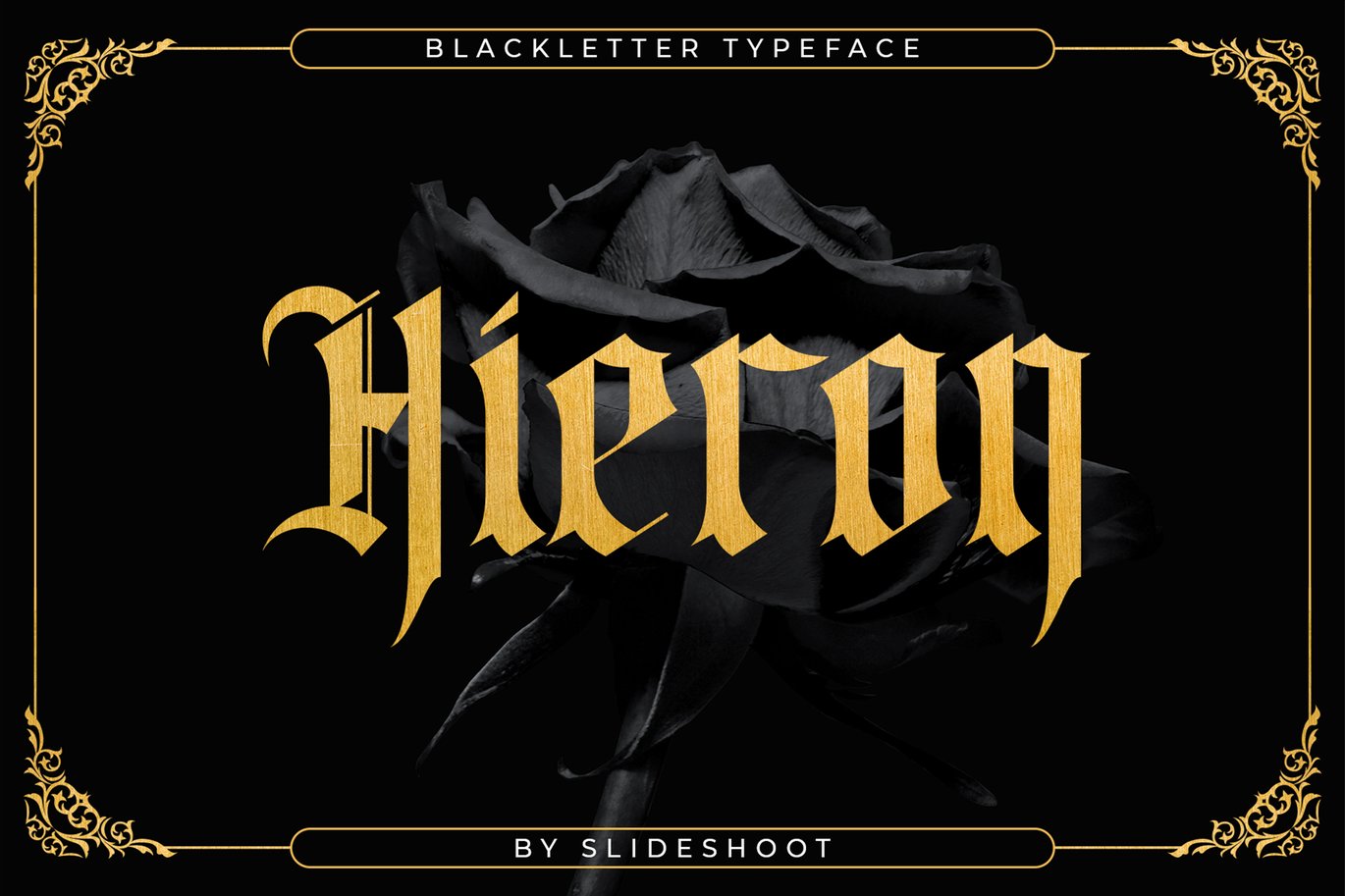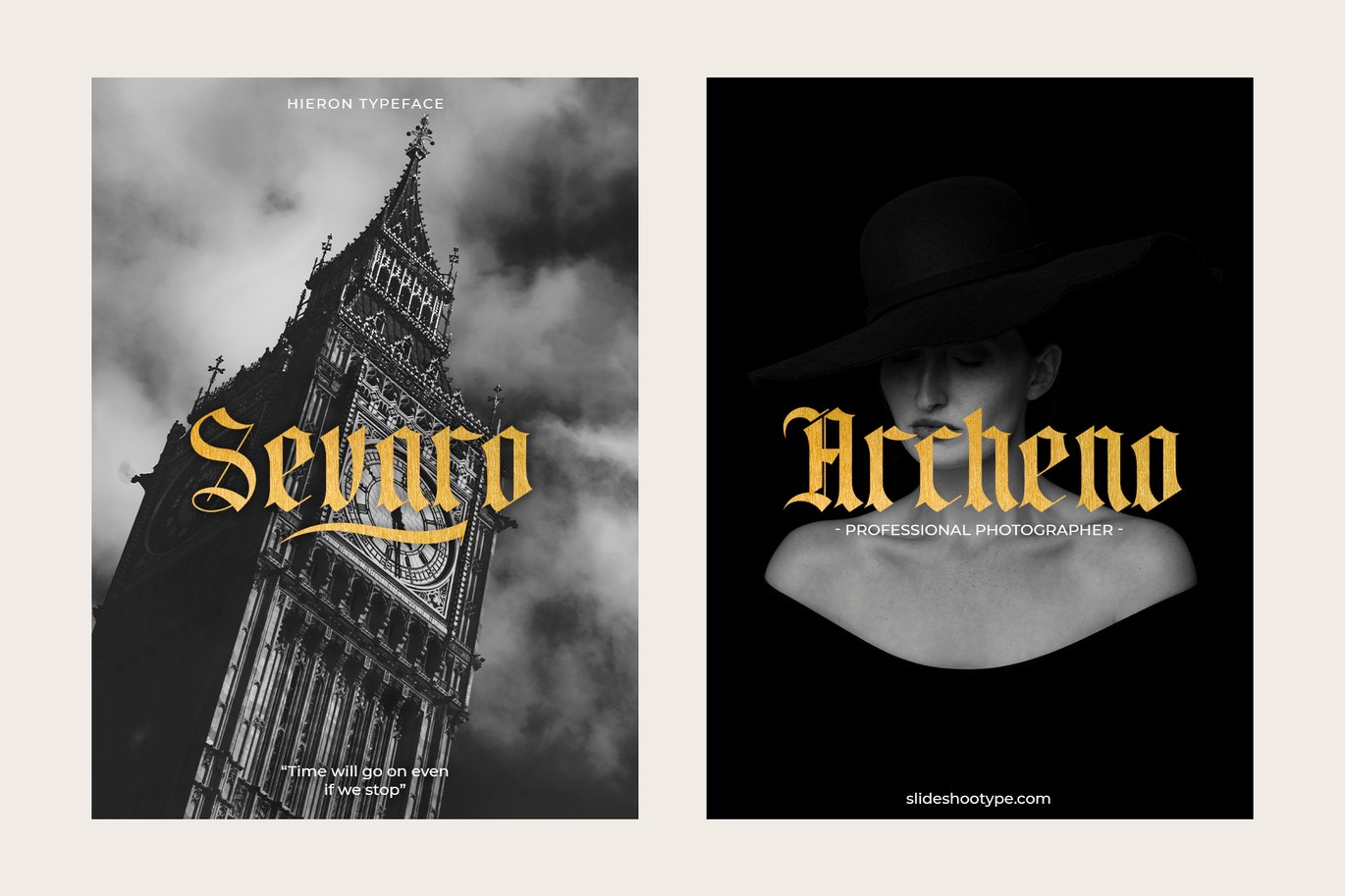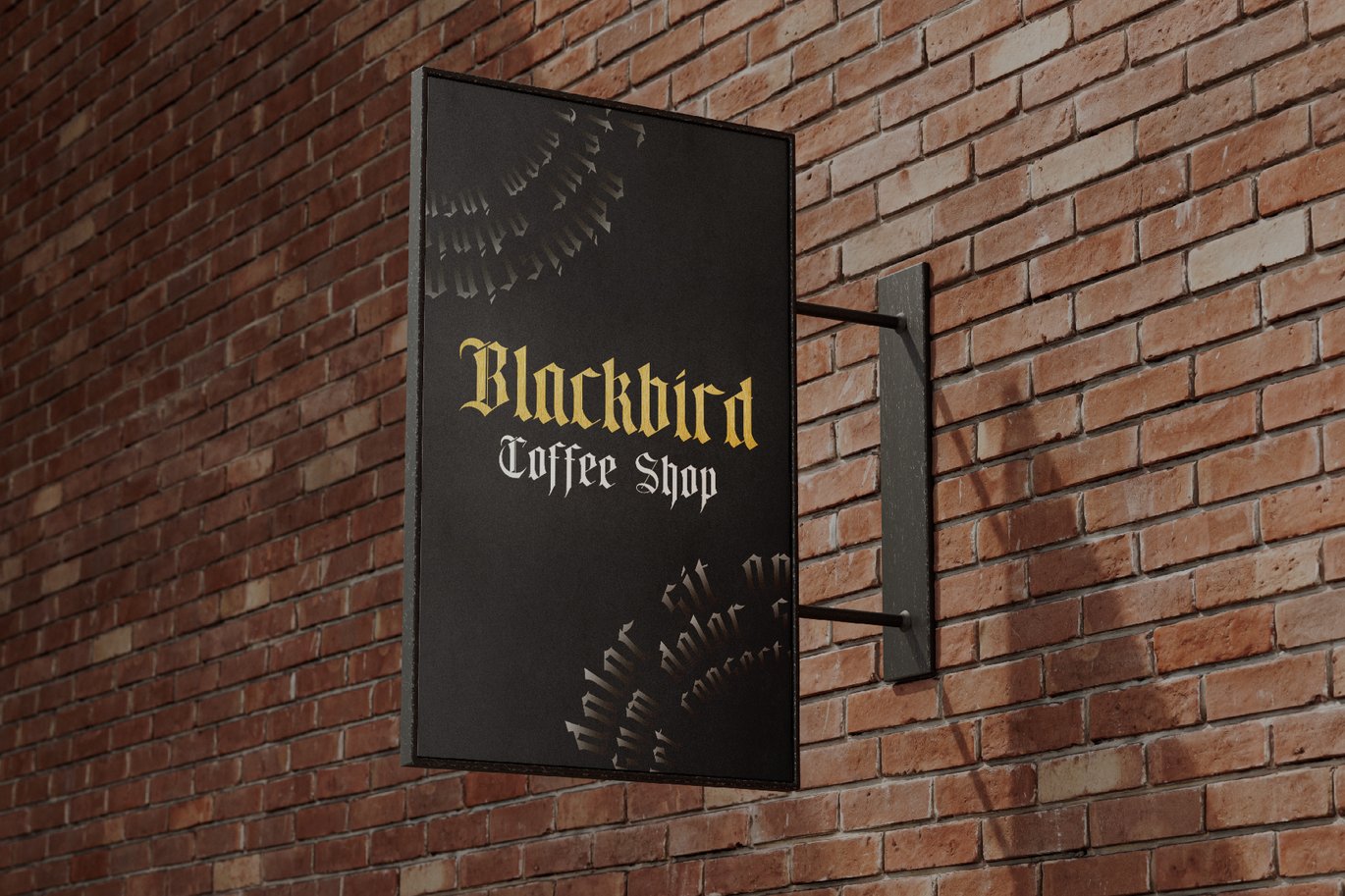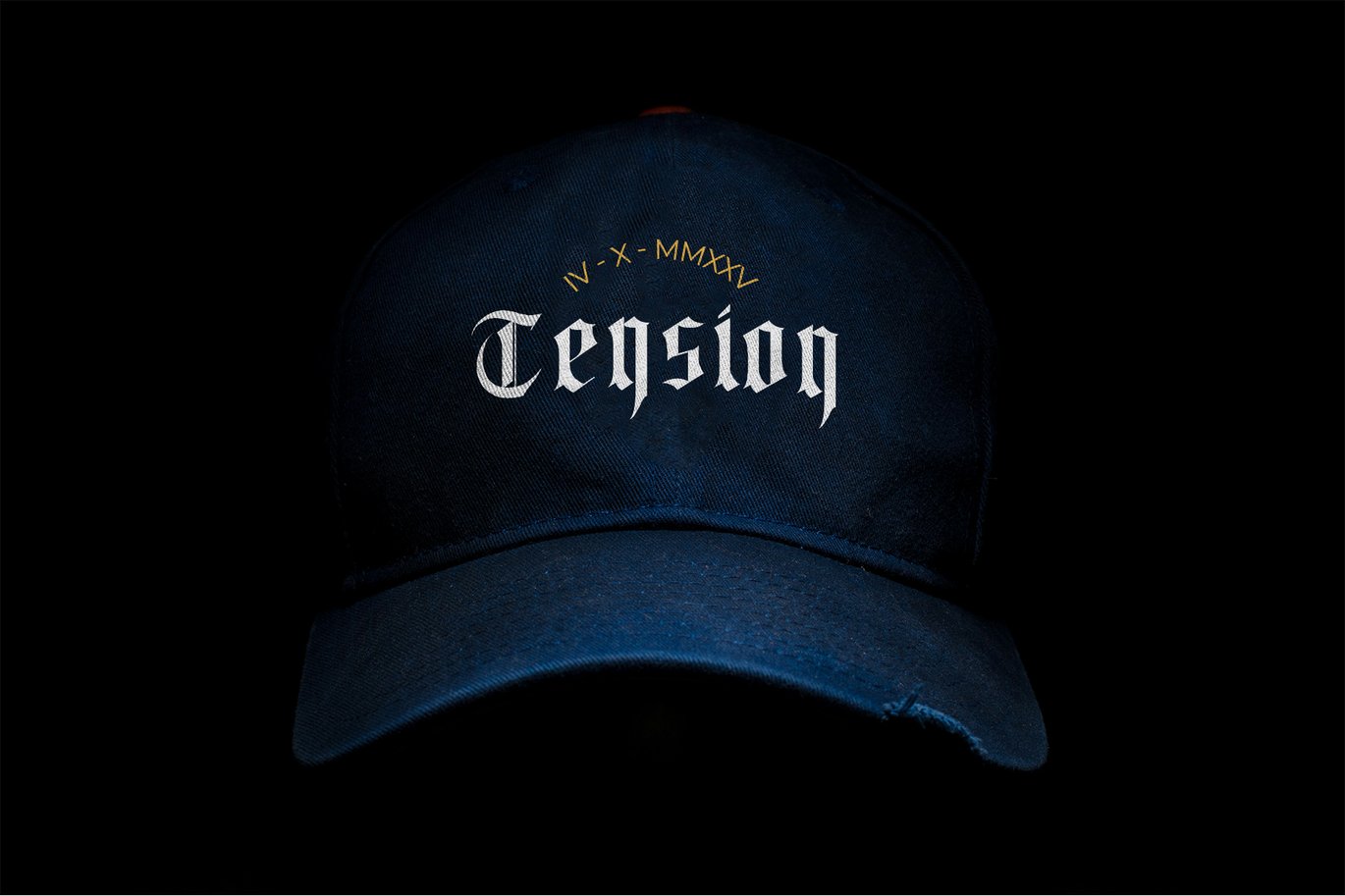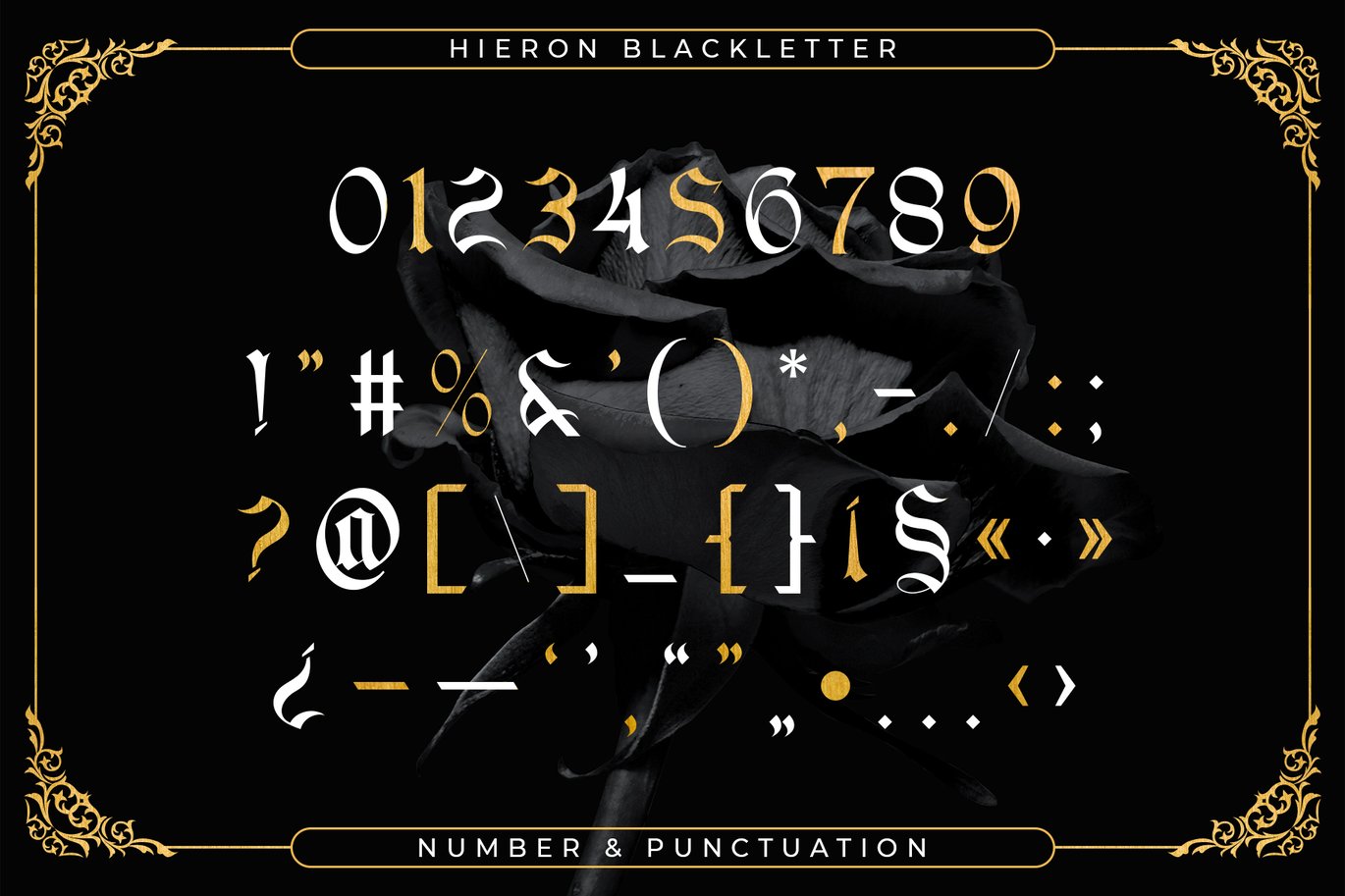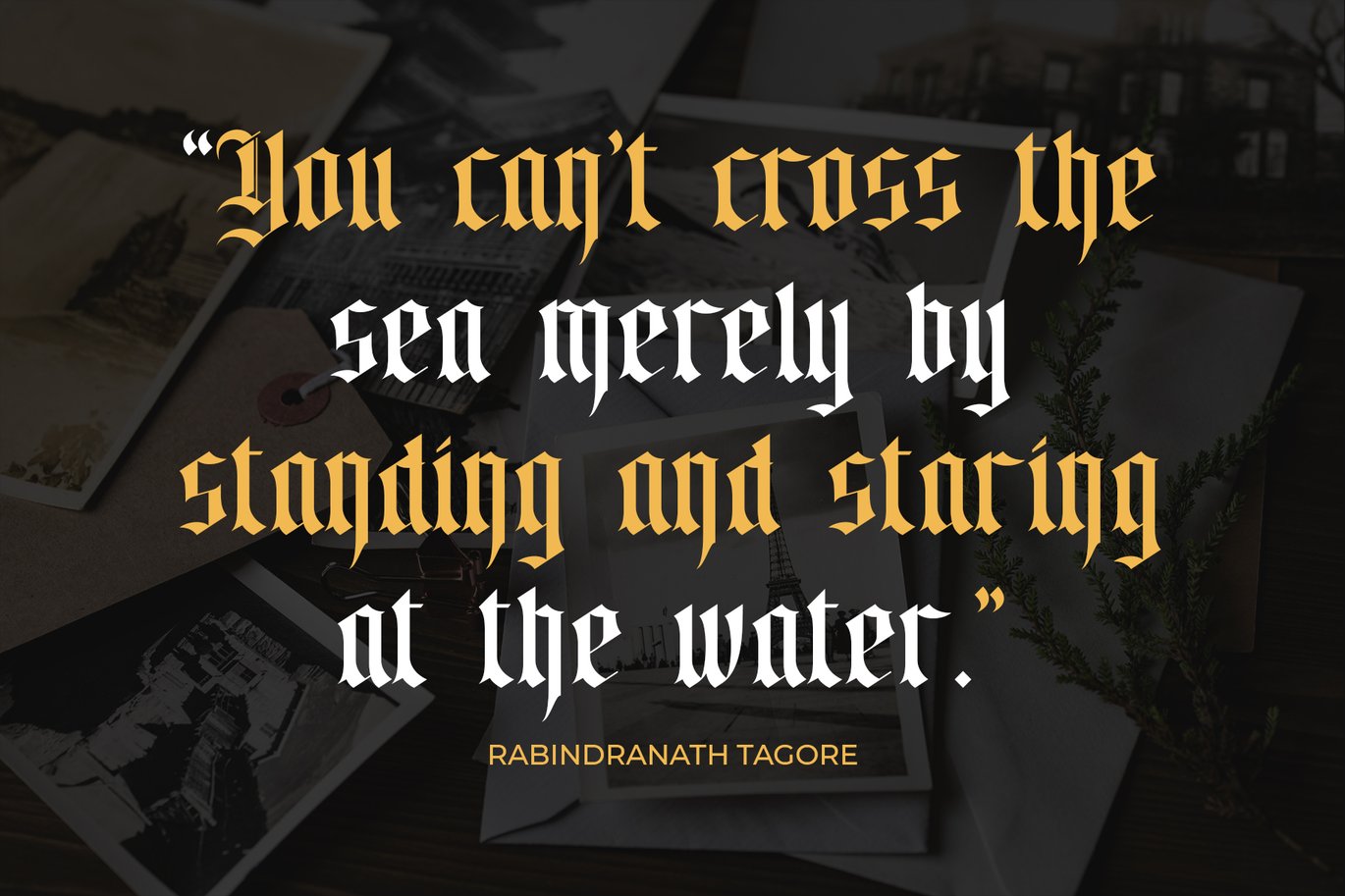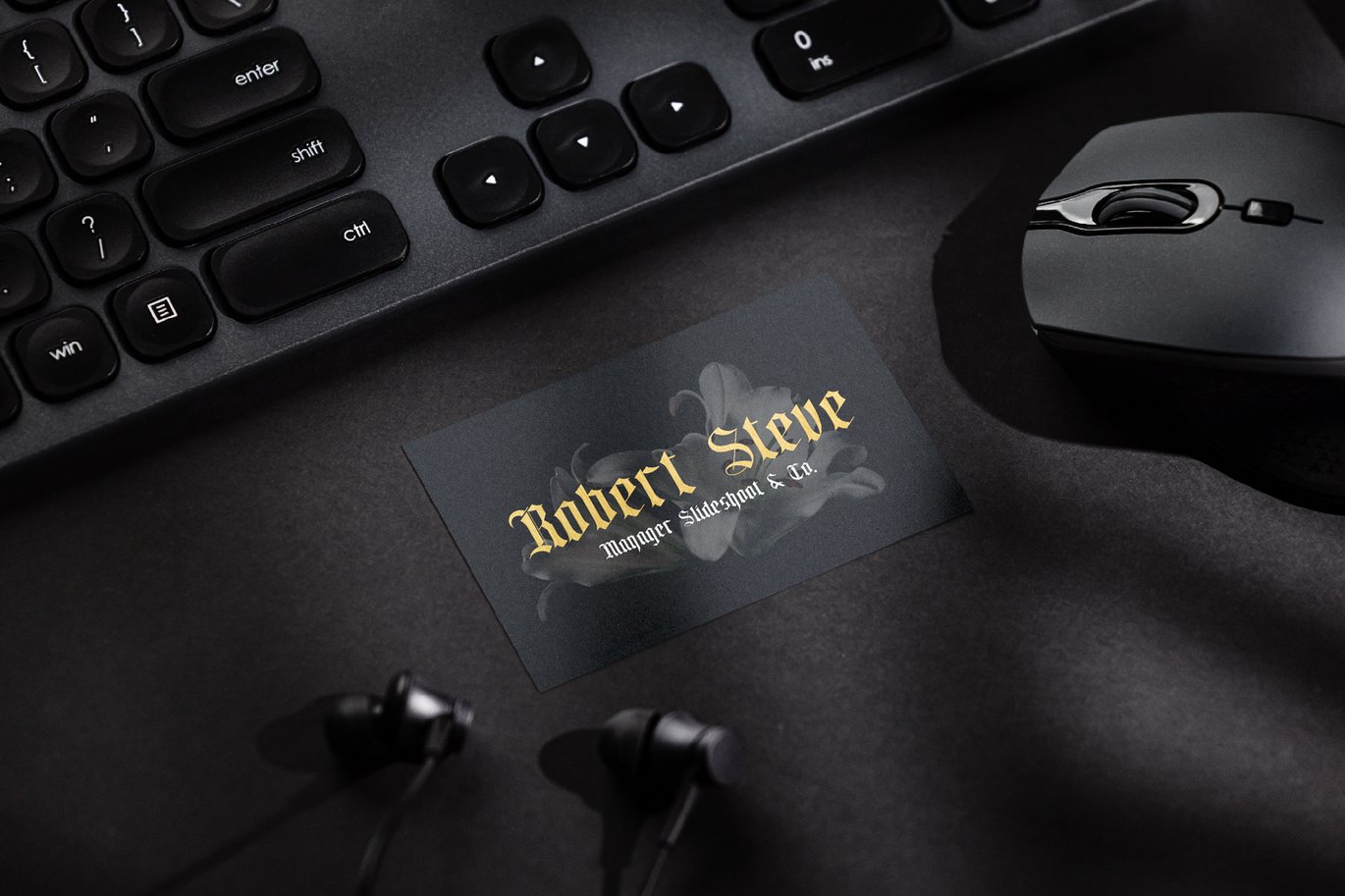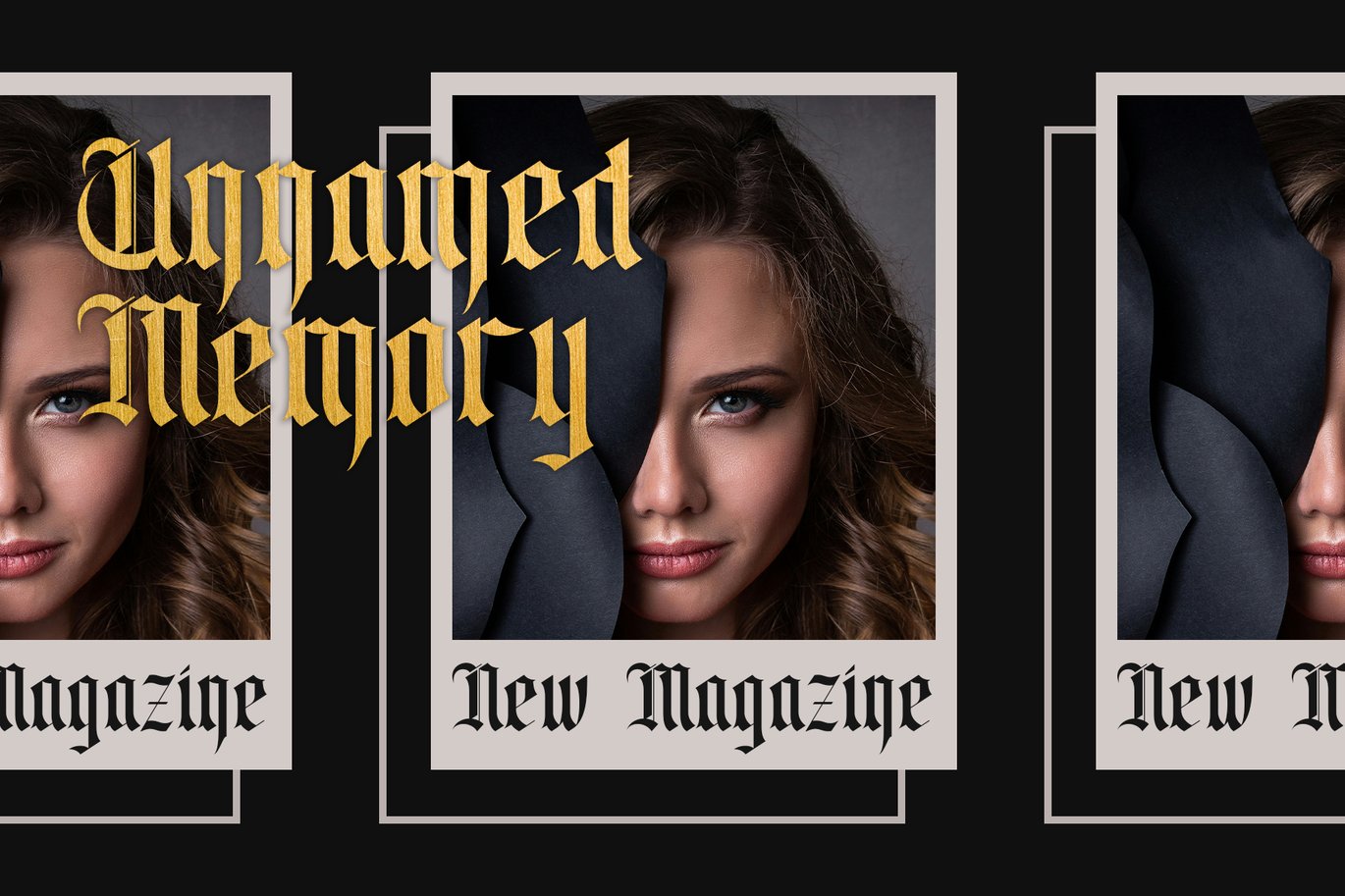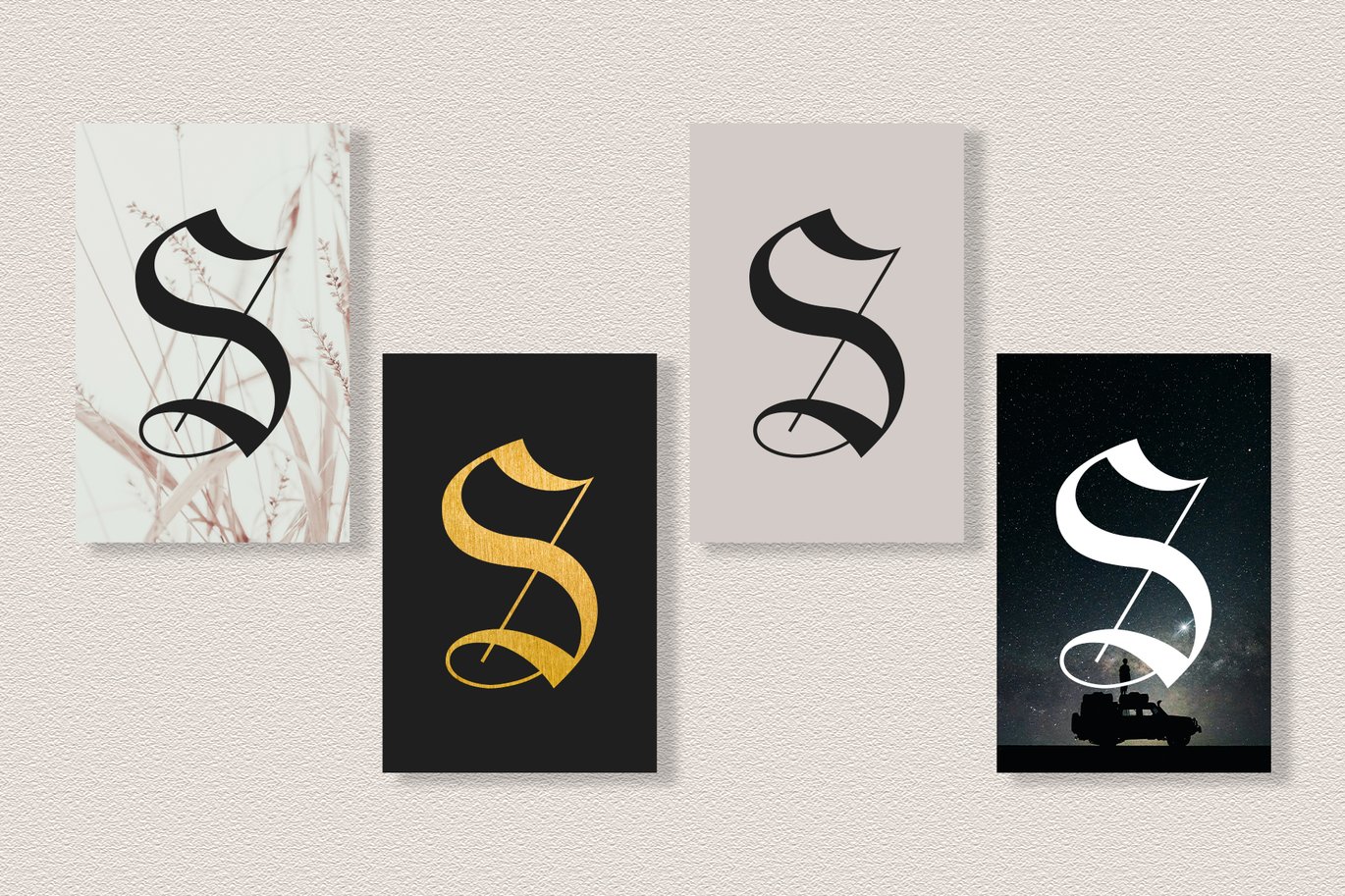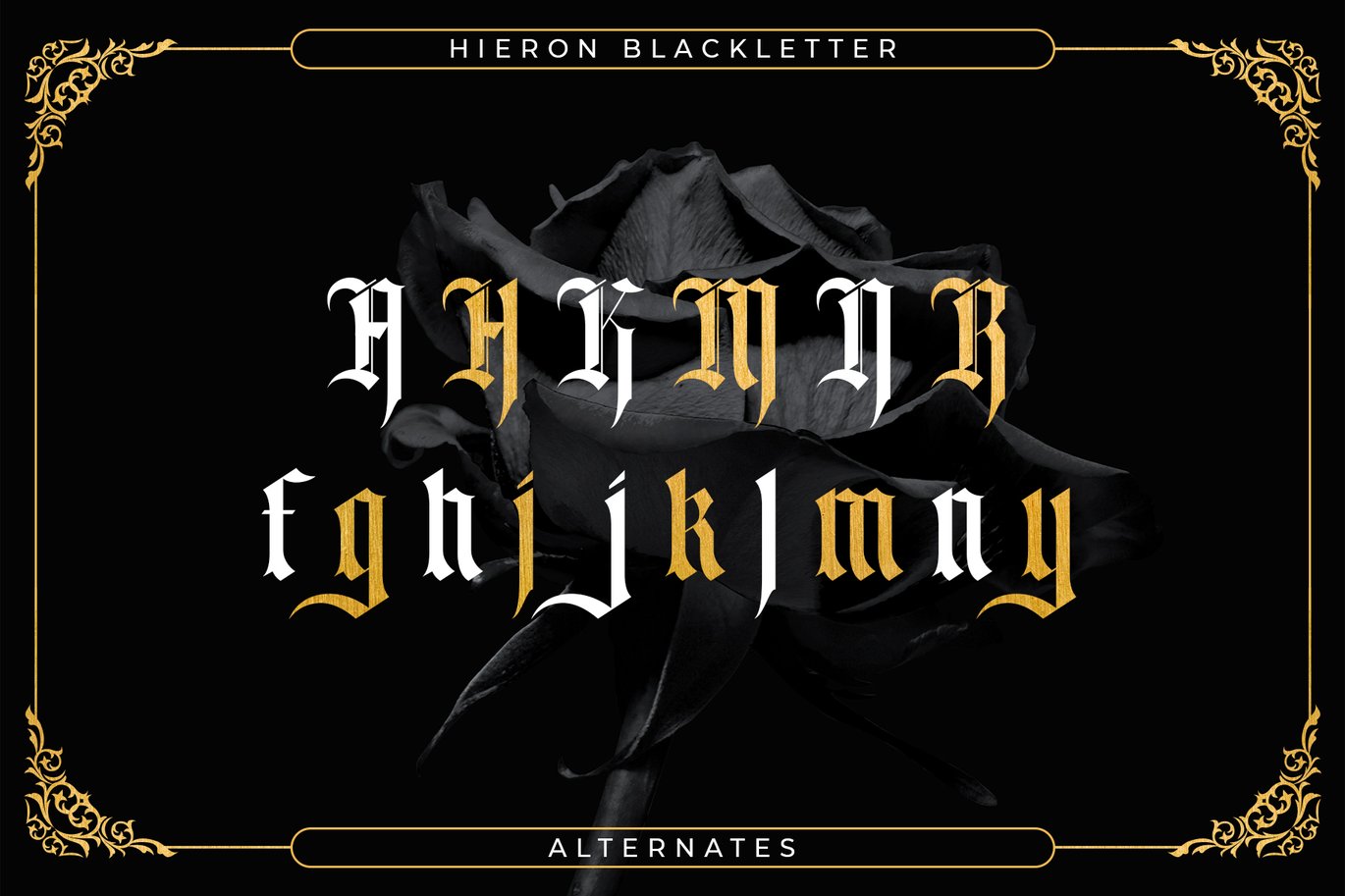
Hieron – Blackletter Font
Hieron is an incredibly authentic and daring blackletter font. Add this font to your favorite creative ideas and notice how it makes them stand out! Hieron Blackletter is an incredibly authentic and daring blackletter font. Its stylish alternations and ligatures make this font the perfect partner for any project.
- Uppercase and lowercase
- Numbering and Punctuation